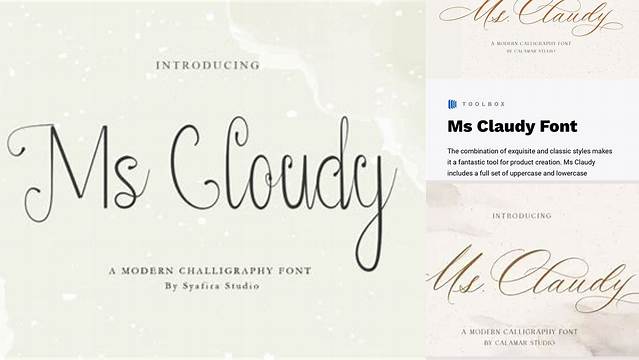
Hey guys! Are you on the lookout for a font that screams elegance and readability? Well, let's dive into the world of Ms Claudy Regular Font! This font is a fantastic choice for various design projects, offering a blend of classic and modern aesthetics. In this article, we'll explore everything about Ms Claudy Regular, from its features and benefits to where you can find it for free and how to use it effectively.
What is Ms Claudy Regular Font?
Ms Claudy Regular is a beautifully designed font that falls into the script typeface category. Its flowing lines and elegant curves make it a popular choice for projects that require a touch of sophistication. Think wedding invitations, branding materials, and even website headers – Ms Claudy Regular can add that extra layer of polish. The font's clear and legible design ensures that it’s not just pretty but also functional, making it suitable for both display and body text, depending on the context.
One of the key attributes of Ms Claudy Regular Font is its versatility. It's designed to be easily readable, even at smaller sizes, which is a huge plus for body text in brochures or website content. The elegant script gives a personal touch, making your content feel more inviting and less sterile. Moreover, its aesthetic appeal makes it stand out, ensuring that your designs grab attention. Whether you're designing a logo, creating marketing materials, or working on a personal project, Ms Claudy Regular can elevate your work.
Another important aspect of Ms Claudy Regular is its balance between traditional and contemporary design elements. The font doesn’t feel dated, and it fits well with modern design trends, making it a timeless choice. This adaptability means you won't have to worry about your designs looking old-fashioned anytime soon. It’s also a font that pairs well with various other typefaces, giving you plenty of creative freedom. You can combine it with a clean sans-serif font for a modern look or with a classic serif font for a more traditional feel. The possibilities are endless, and experimenting with different combinations can lead to some stunning results.
Key Features and Benefits
Let’s break down the specific features that make Ms Claudy Regular Font a standout choice for your design needs. First off, its elegant script style is perfect for creating a sophisticated and refined look. The flowing lines and unique letterforms add a touch of class to any project. Additionally, the font includes a variety of ligatures and alternates, allowing you to customize the look and feel of your text. Ligatures are special characters that combine two or more letters into a single glyph, enhancing the overall aesthetic appeal and readability. Alternates provide different versions of certain letters, giving you even more flexibility in your design.
The legibility of Ms Claudy Regular is another major benefit. Some script fonts can be difficult to read, especially at smaller sizes, but Ms Claudy Regular is designed with clarity in mind. This makes it suitable for a wide range of applications, from headlines to body text. The spacing between letters and the overall structure of the font ensure that each character is easily distinguishable, even in longer passages of text. This is particularly important for projects like brochures, websites, and invitations, where readability is crucial.
Versatility is a core strength of this font. Ms Claudy Regular works well in both digital and print media. It’s equally effective for creating logos, website headers, business cards, invitations, and social media graphics. Its adaptability makes it a valuable asset for designers working on a variety of projects. Furthermore, Ms Claudy Regular supports multiple languages, which is essential for reaching a global audience. This feature ensures that the font can be used in a wide range of international projects without any issues.
In conclusion, Ms Claudy Regular Font is a versatile and elegant typeface that can enhance a wide range of design projects. Its flowing lines, clear legibility, and unique character make it a valuable asset for any designer. Whether you’re working on wedding invitations, logos, or website headers, Ms Claudy Regular can add a touch of sophistication and class to your work. So go ahead, download it for free from a reputable source, and start experimenting with its endless possibilities!